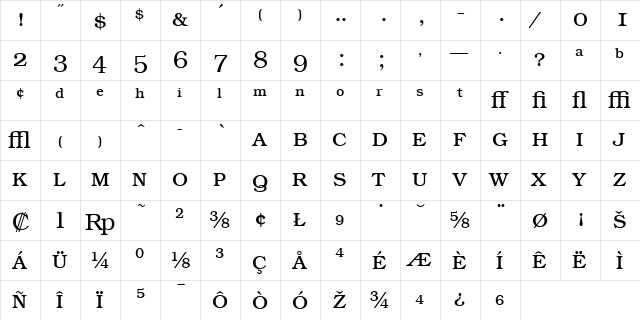
BookwomanExp LightSH Font Preview
BookwomanExp LightSH
Design Context for BookwomanExp Typeface
BookwomanExp offers clean, dependable letterforms without strong stylistic allegiance, making it a practical choice for designers who need flexibility. Its slender proportions lend an understated elegance to any composition.